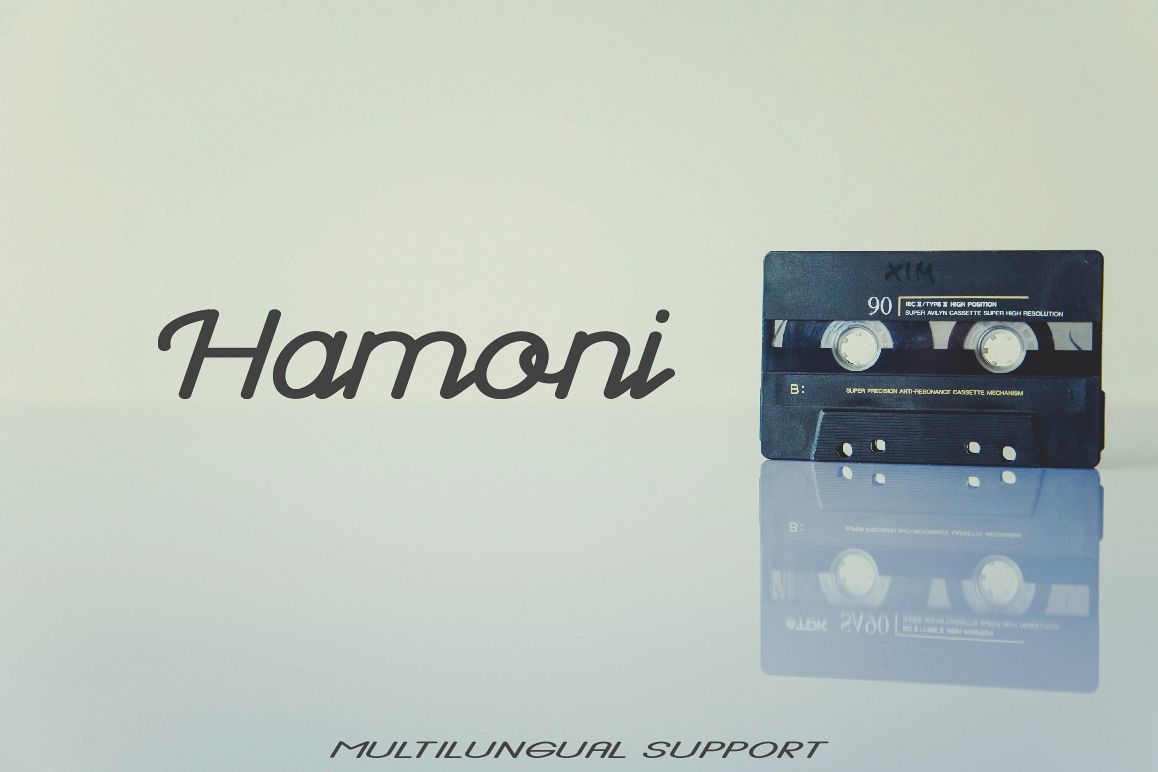
Hamoni
Hamoni is a modern and sweet script font with a playful tone. Get inspired by this one-of-a-kind typeface!
This font good for wedding, signature, words, lettering, food, building, marketing, brand, etc.